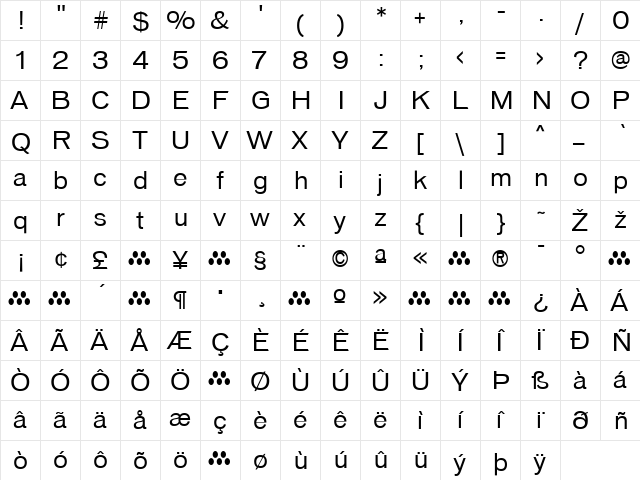
Vonnes Regular
Design Context for Vonnes Typeface
Vonnes offers clean, dependable letterforms without strong stylistic allegiance, making it a practical choice for designers who need flexibility.
Pro Tip: Pair Vonnes with a font of contrasting weight or personality to build a more expressive typographic hierarchy.